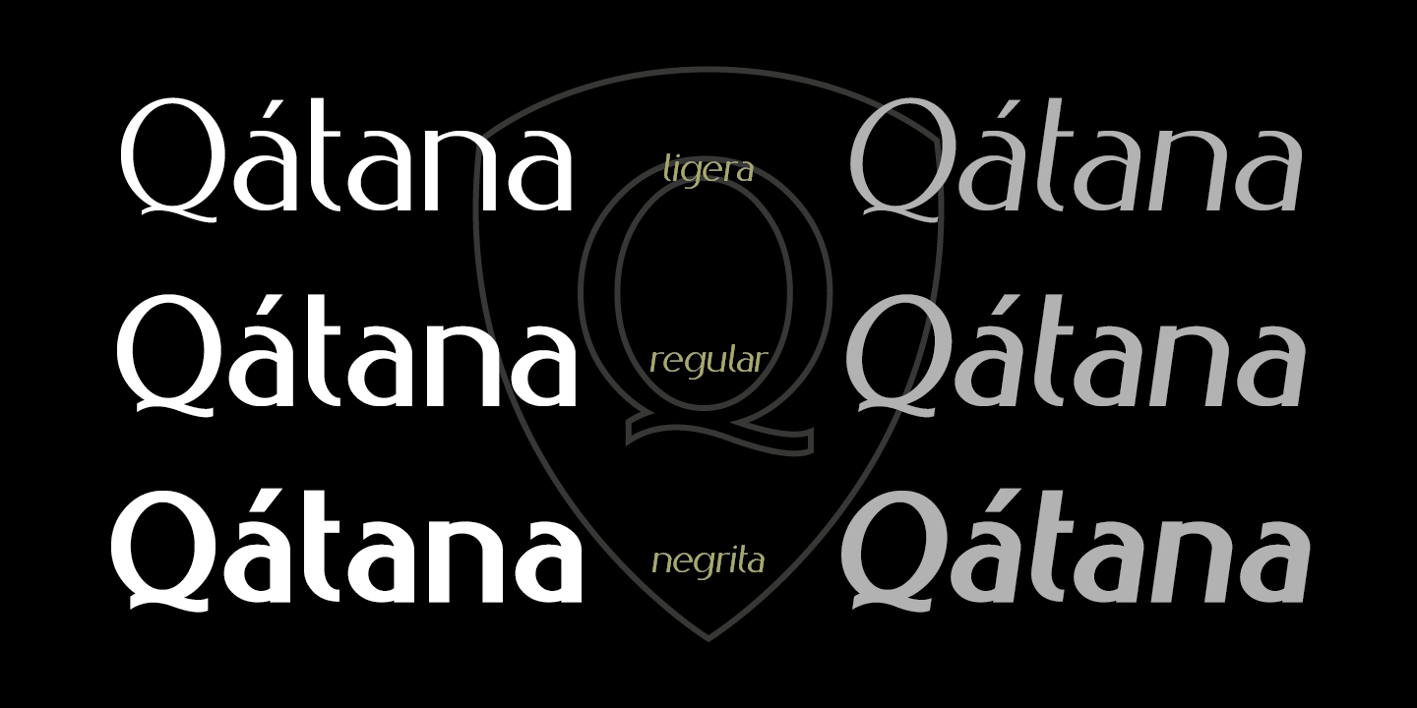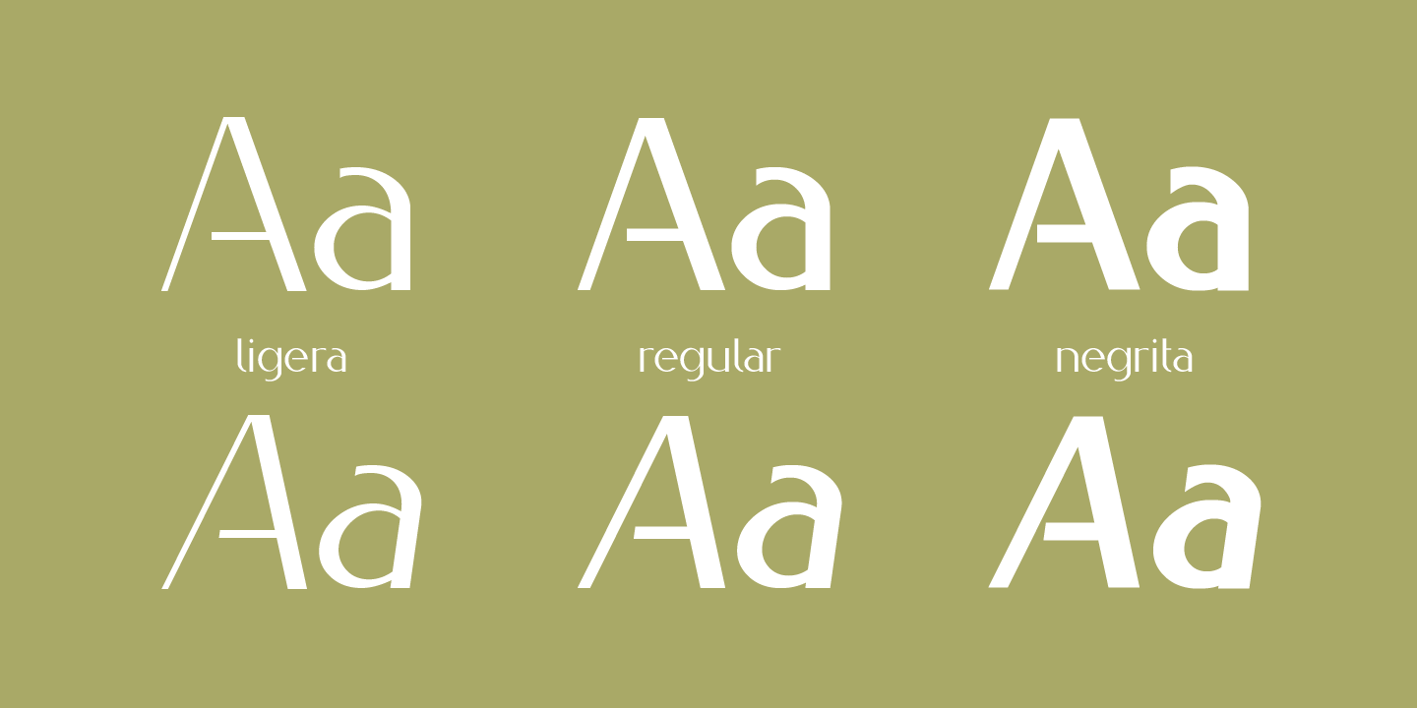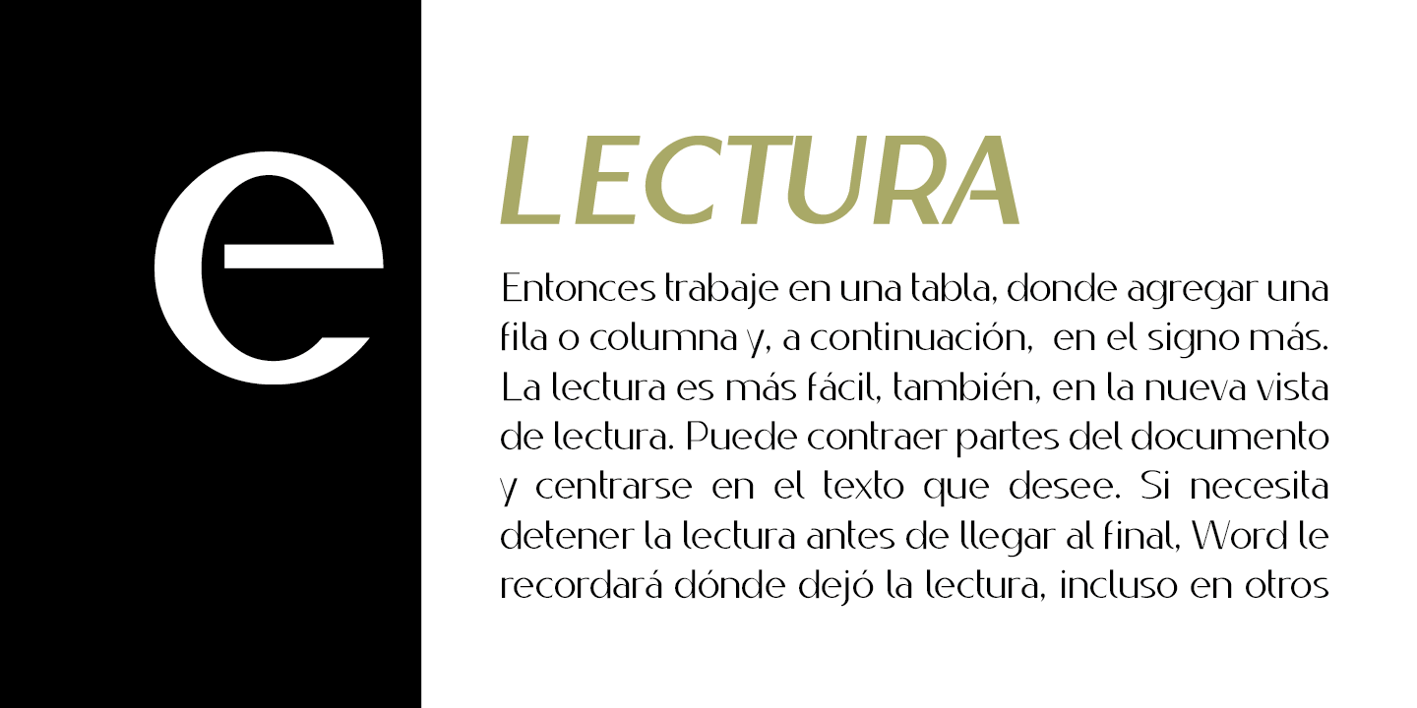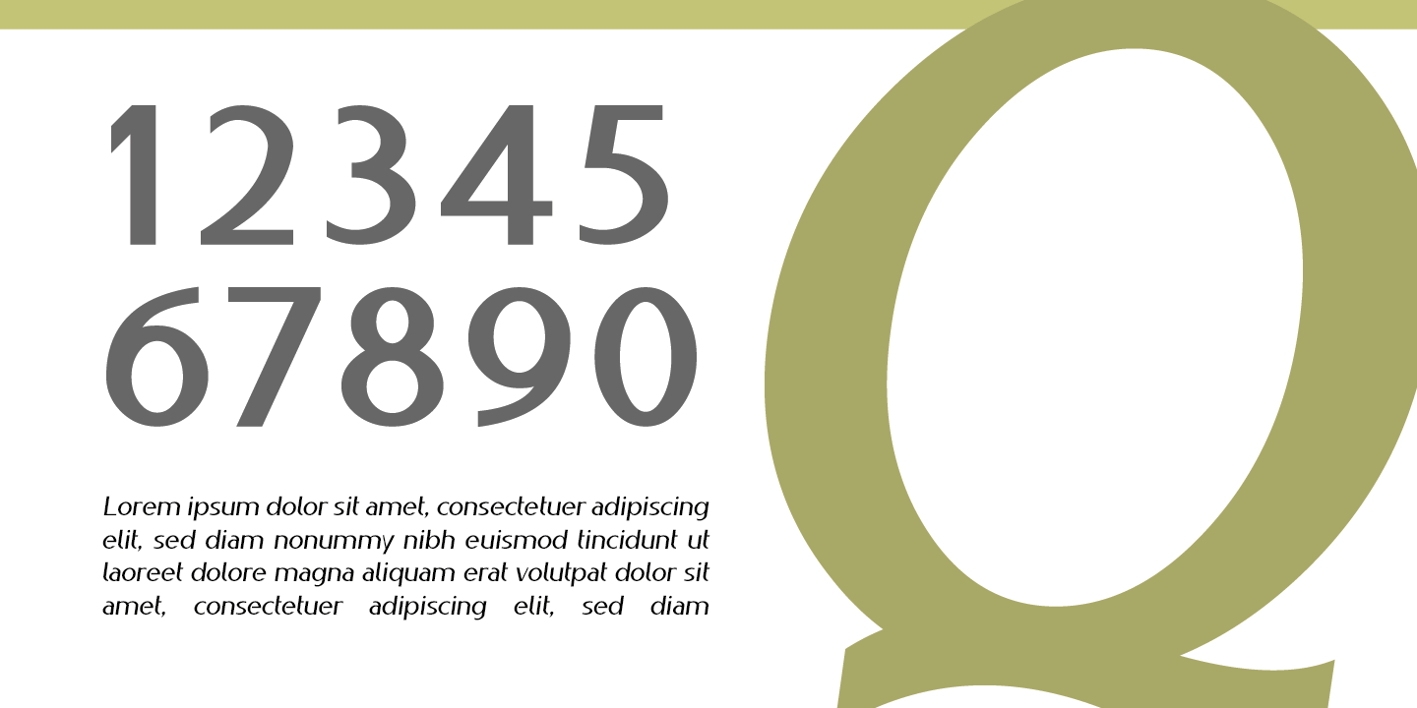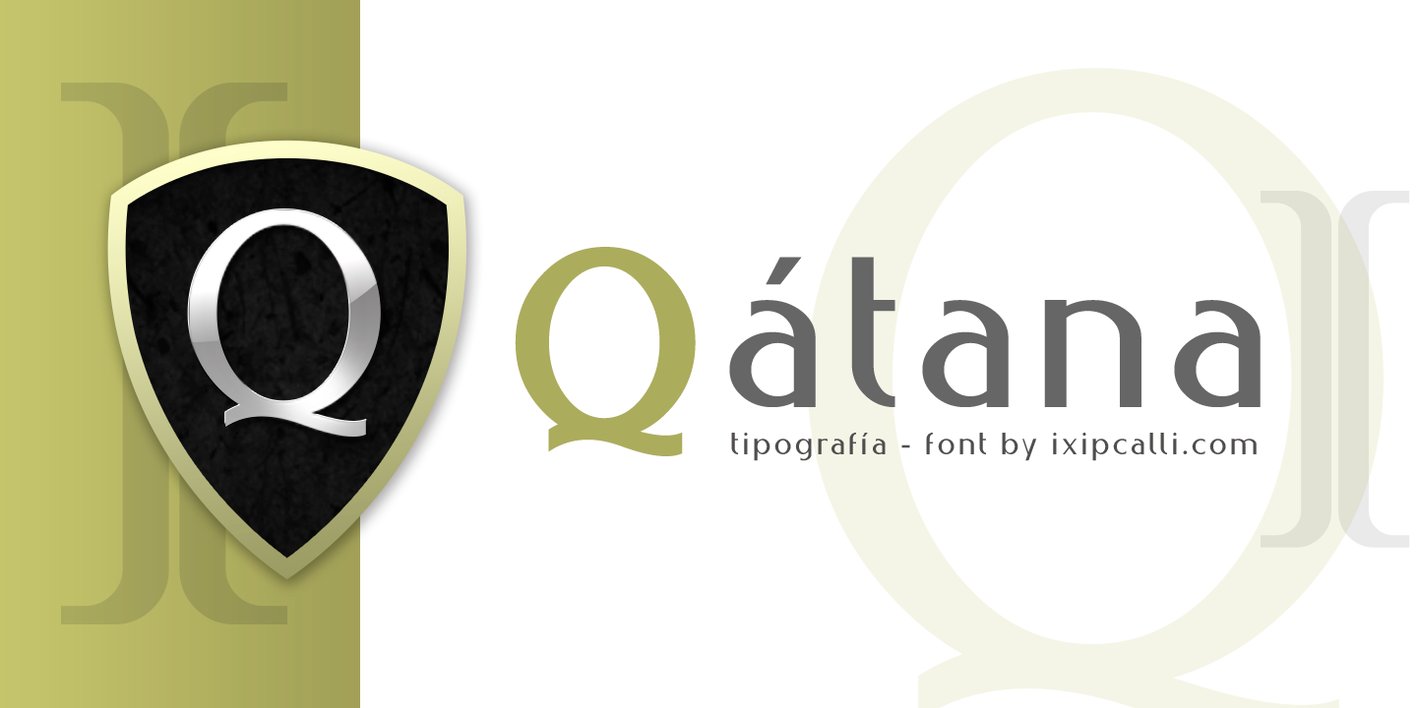
Qatana Font
Qatana Font excels in Middle Eastern restaurant branding, Arabian cultural exhibitions, Islamic art gallery displays, luxury desert resort signage, Arabic calligraphy workshops, Persian carpet boutique logos, oriental spice market materials, traditional hookah lounge decorations, Middle Eastern heritage festivals, and authentic Arabian hospitality venues. This exotic typeface brings Arabian mystique and Middle Eastern sophistication to any culturally-inspired design project.
Qatana Font is exciting because it captures the ancient wisdom and timeless beauty of Middle Eastern culture, featuring elegantly structured letterforms that evoke the architectural grandeur of Arabian palaces and the sophisticated artistic traditions that have flourished across the Middle East for millennia. Its exotic character instantly conveys cultural depth, mystical allure, and the refined hospitality of Arabian traditions.
Qatana Font family includes Light, Regular, Medium, and Bold weights with Arabian-inspired alternates, Middle Eastern flourishes, geometric ornamental elements, and cultural decorative glyphs that enhance the oriental aesthetic, providing cultural designers with authentic tools for creating typography that honors the artistic heritage and sophisticated traditions of Middle Eastern civilization.
Middle Eastern hospitality designers appreciate Qatana Font for its exceptional ability to convey Arabian elegance and cultural authenticity through carefully crafted letterforms. The font's exotic character and Middle Eastern details create immediate associations with ancient trade routes, palace architecture, and the sophisticated hospitality traditions that define authentic Middle Eastern luxury and cultural refinement in dining, hospitality, and cultural experiences.
The cultural authenticity of Qatana Font draws inspiration from Arabic calligraphy traditions, Islamic geometric patterns, and the rich artistic heritage of Middle Eastern design culture, making it particularly effective for cultural venues, luxury hospitality brands, and authentic restaurants seeking to establish genuine connections with Middle Eastern heritage and Arabian sophistication. Cultural teams working on Middle Eastern experiences find this font essential.
Whether used for authentic Middle Eastern restaurants, Arabian cultural centers, or luxury desert hospitality experiences, Qatana Font delivers the perfect synthesis of cultural authenticity and Arabian elegance. Its exotic appeal and Middle Eastern heritage make it an indispensable choice for brands that celebrate Arabian culture, Middle Eastern traditions, and the timeless sophistication of authentic Middle Eastern hospitality and cultural refinement.